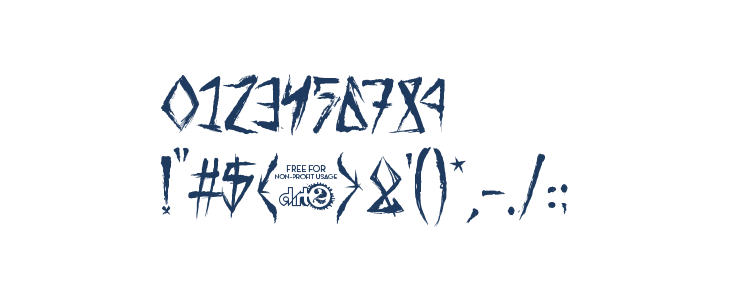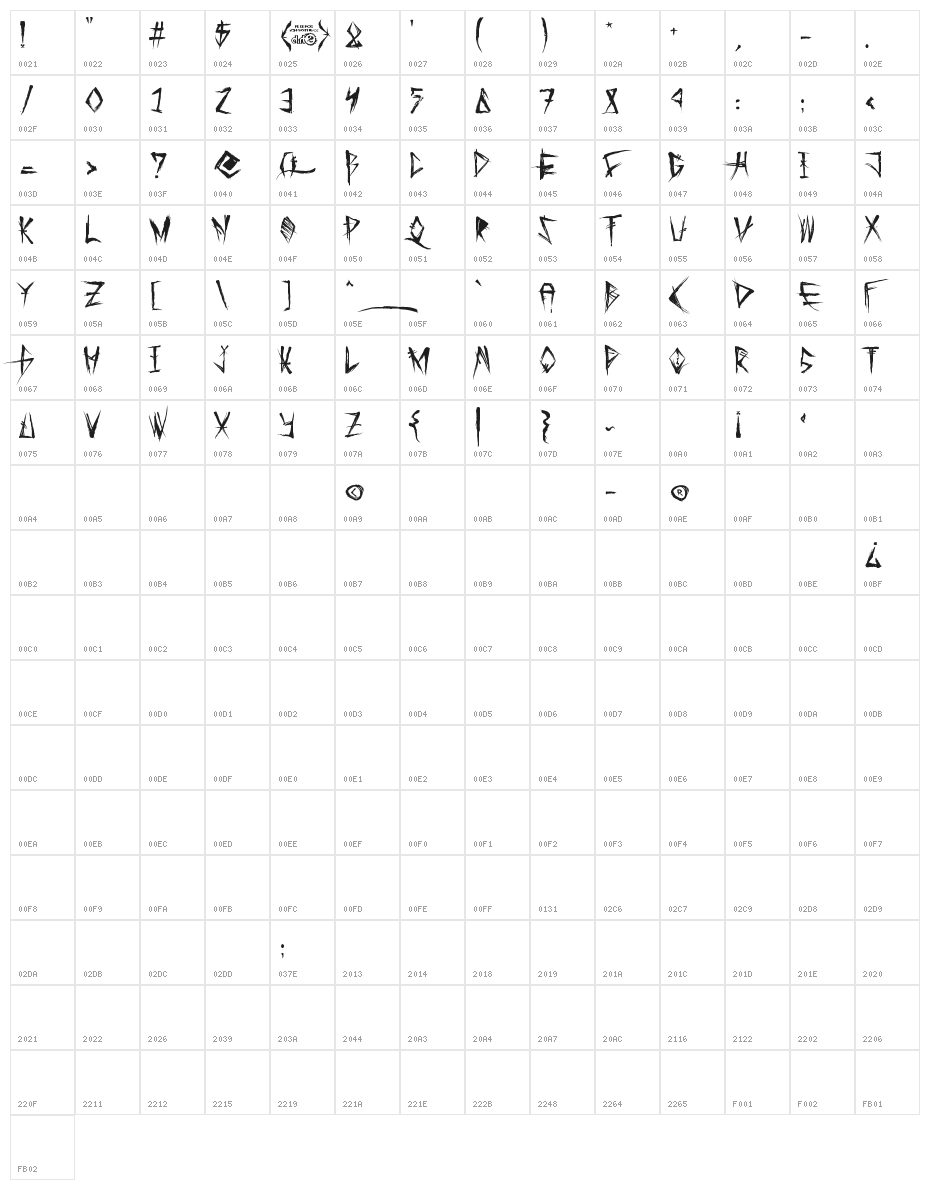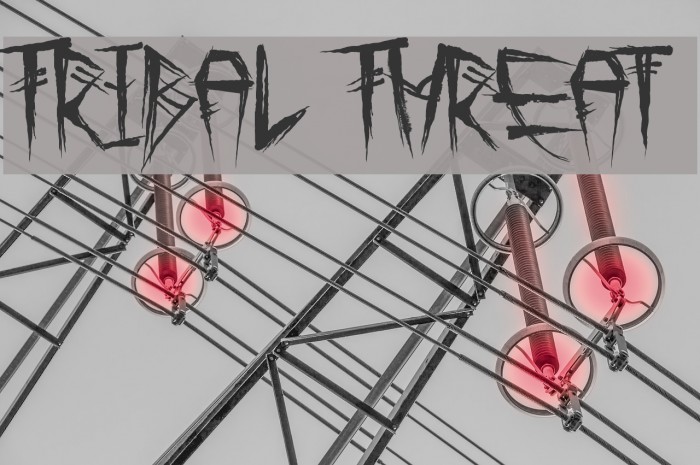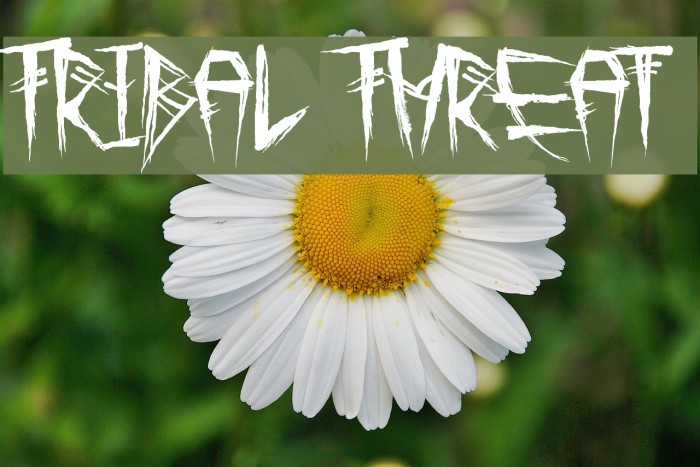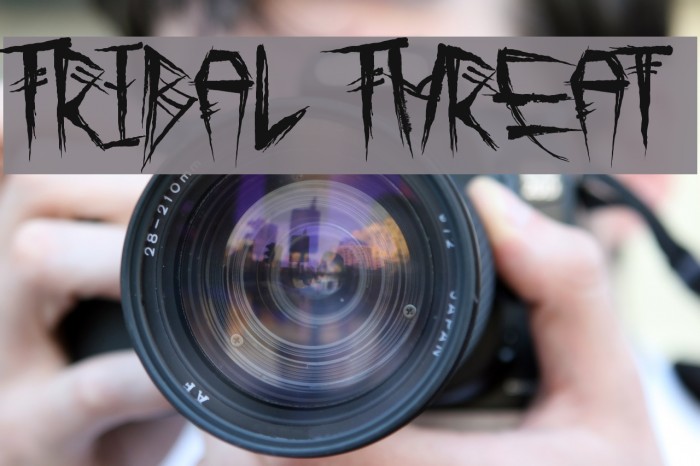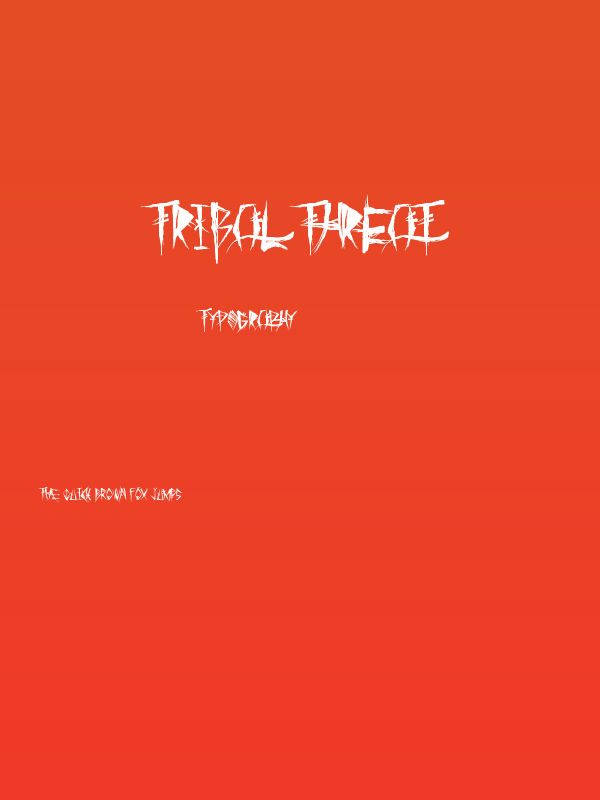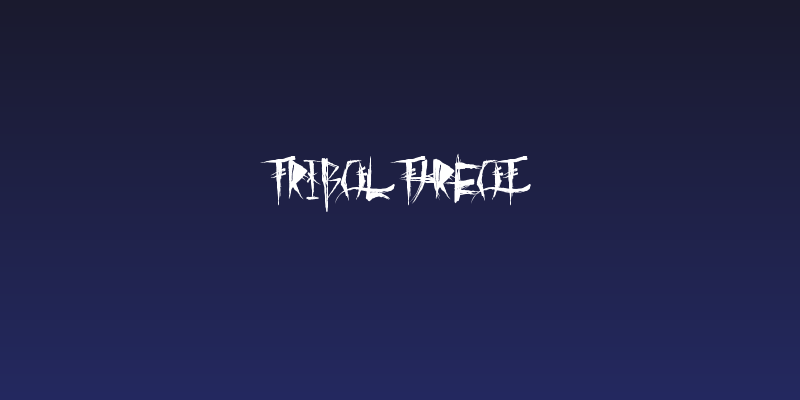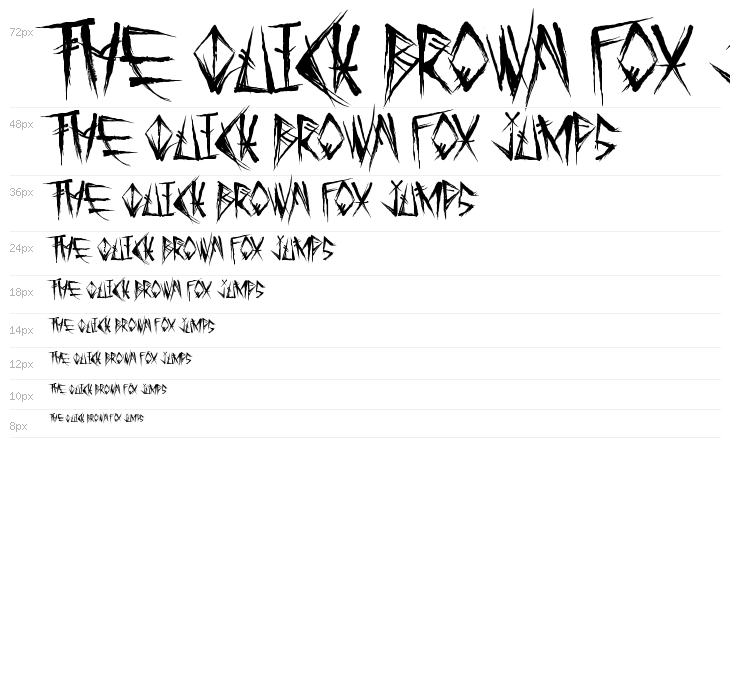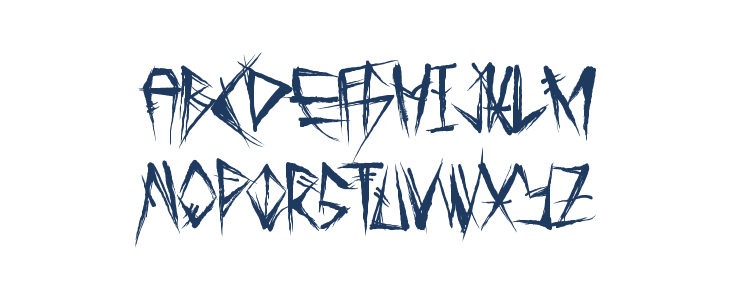
Tribal Threat Font
Tribal Threat Description
This font features a bold, aggressive style with sharp, jagged edges and a tribal aesthetic. The letters are highly stylized, resembling primitive carvings or graffiti, which gives it a raw and edgy appearance. The uppercase and lowercase letters maintain a consistent theme, with angular strokes and pointed ends. Numbers and special characters follow the same design, ensuring uniformity across all elements. The font's unique style makes it stand out, perfect for projects that require a strong visual impact.
| Use Case | Logos, Posters, Headlines |
| Proposed Projects | Ideal for band logos, extreme sports branding, poster designs, and any project needing a bold, edgy look. |